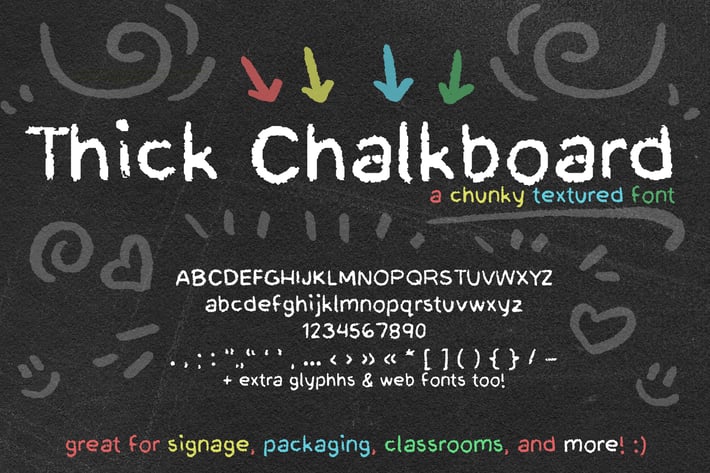
Thick Chalkboard Font (Handwriting Chalk Font)
Introducing Thick Chalkboard, a cute handwritten chalk font. This handwriting font has a chalk texture; I wanted to experiment with some chalkboard writing with this one. :) It's a fun choice if you're looking for chalkboard aesthetic fonts, or a handwriting font for signage, coffee or cafe displays, and other things like that!
Every letter was lovingly drawn by me. Drawing letterforms is such a joy, and I hope you enjoy this font as much as I enjoyed creating it.